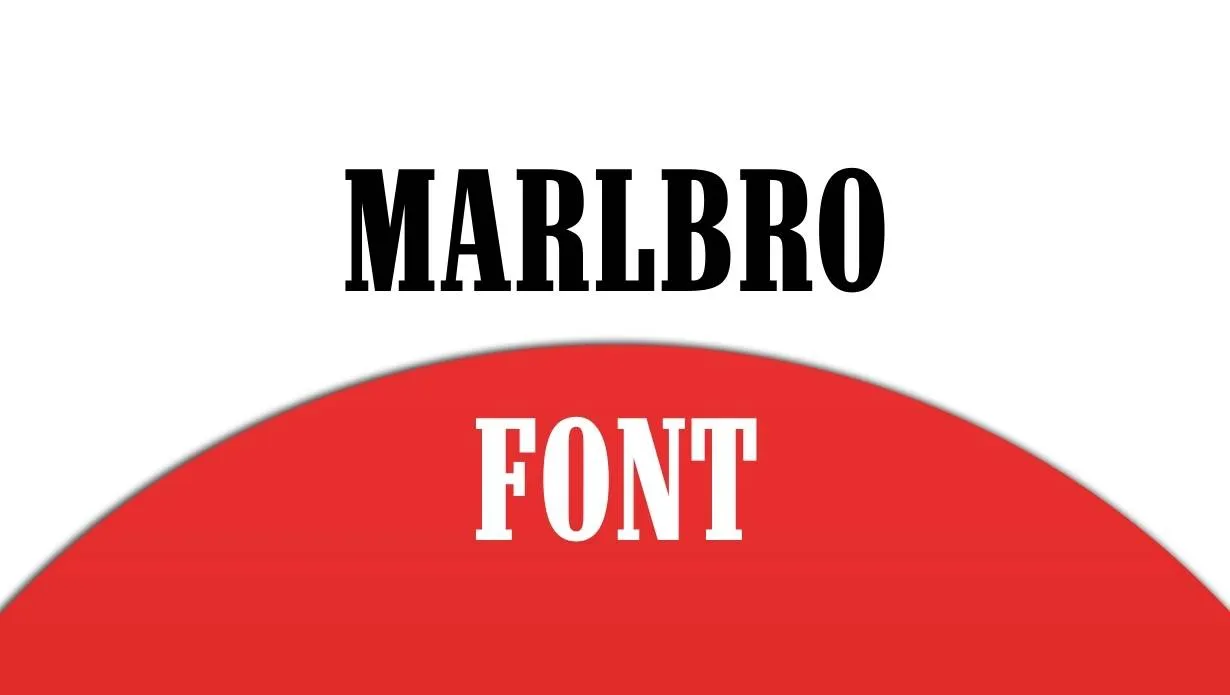
Today we are here to group the text style that was rehearsed in the logo of driving buyer hardware, and video gaming organization “Marlboro Font”. This organization has made many incredibly great games arrangement. This font is used as a cigarette.
Marlboro Font Free
Marlboro Font is ideal for making a logo, pamphlets, books spread exquisite funnies and numerous different spots. You can likewise build up a game alongside this elegant text style. This typeface is ideal for making logos, books covers, cards formats, or for planning on the shirts.